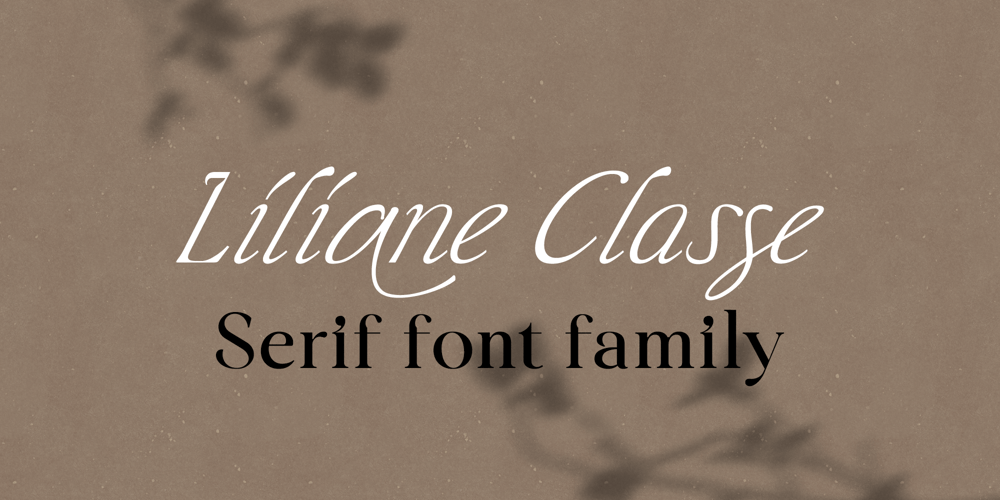
Liliane Classe
Liliane Classe font
Liliane Classe Font Family was designed by Ryul Davidson and published by Brenners Template. Liliane Classe contains 14 styles and family package options. This is a challenge for elegant but radical typography layouts.Standard styles include classic and sophisticated serifs, while italic styles are designed with more adventurous handwritten touches.This serif font family included a total of 14 styles, including 7 weights and separately created italics.It can be the best choice for a unique and meaningful logo and branding design, and it will maintain a refined sense of unity.You need to understand OpenType Features to use these fonts well.Please check first whether the your apps plan to use supports these OpenType Features.Thanks.OpenType Features Discretionary Ligatures : ac, ad, ai, ak, ar, ay, az, ce, ci, ck, co, de, do, dr, er, ft, he, ho, ng, ro, se, sp, te, to, tr Standard Ligatures : fi, fl Alternates : a, d, h, i, k, n, u, z Oldstyle Figures Tabular Figures Fractions